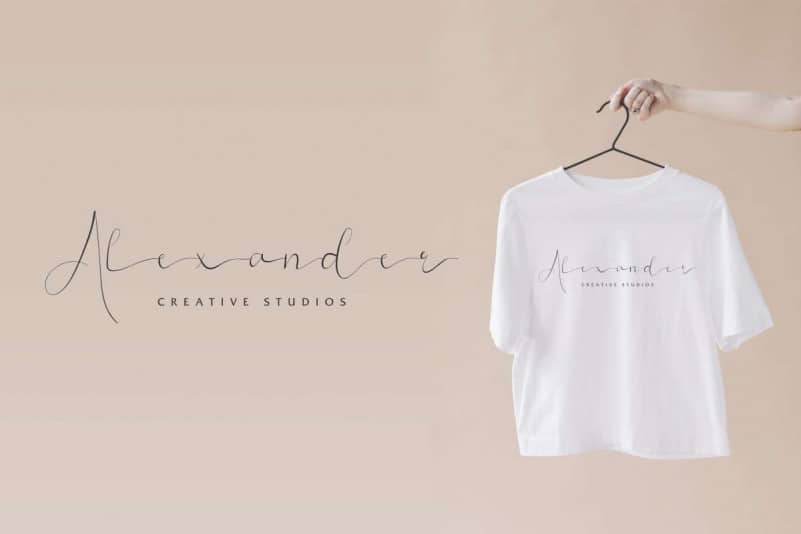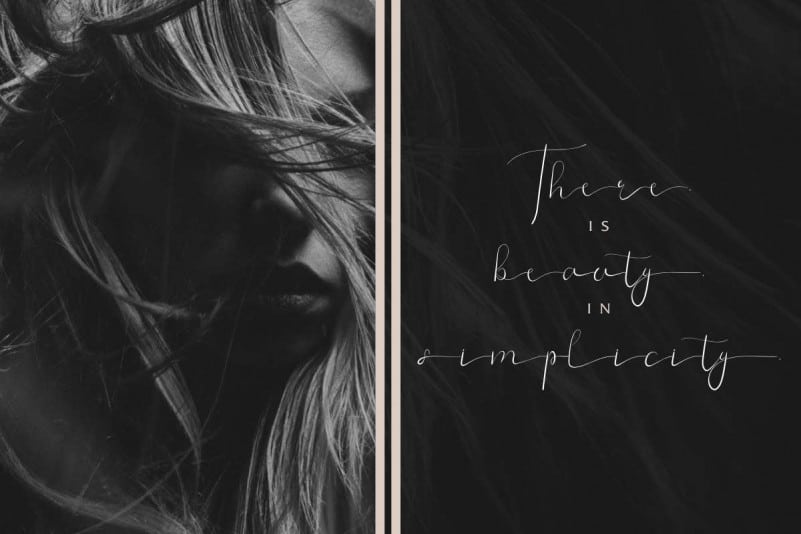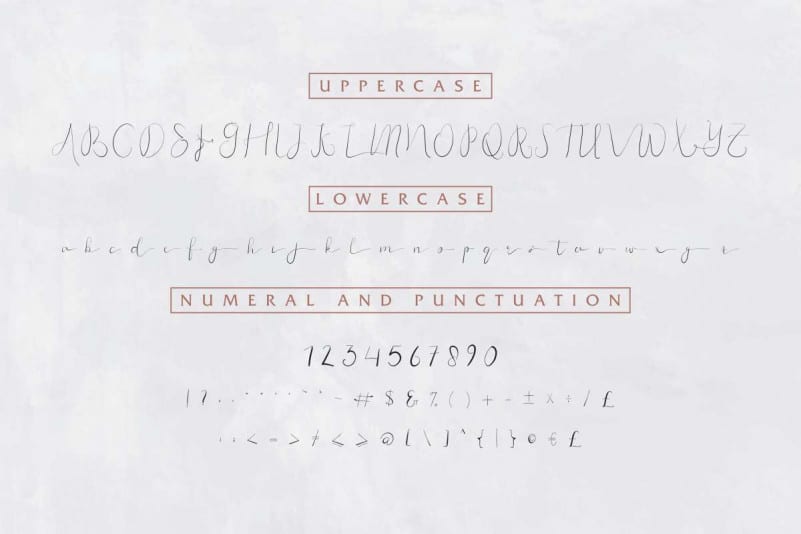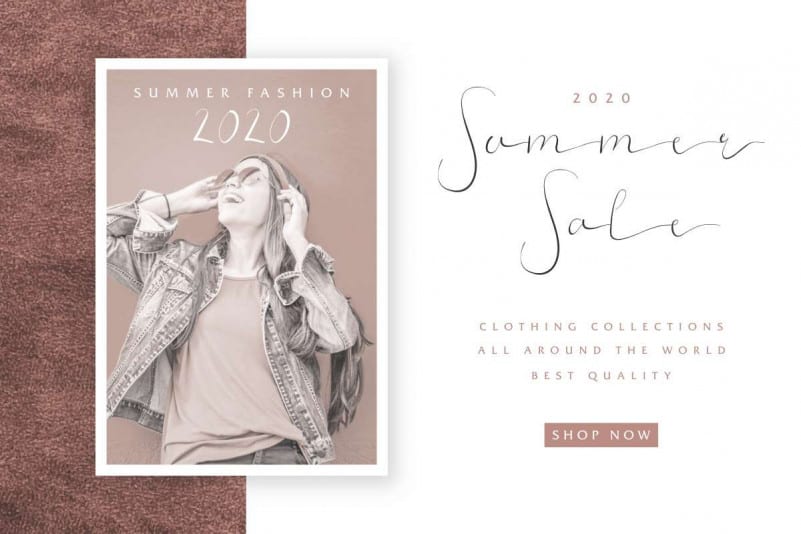
Ghaniya Holmy Script Font
Ghaniya Holmy Script Font has an beautiful glyphs set so you can explore further more and use your creatifity and beyond. This font will suits many projects categories : Logo type, flyer, stationery, business card, signage, flyer, brochure etc.  With your creativity, there’s no limit using with this font.
Ghaniya Holmy Script Font will be great for many business categories : wedding, events, creative company, architect, interior designer, musician, florist, garden and lawn, advertising, makeup artist, composer, etc.